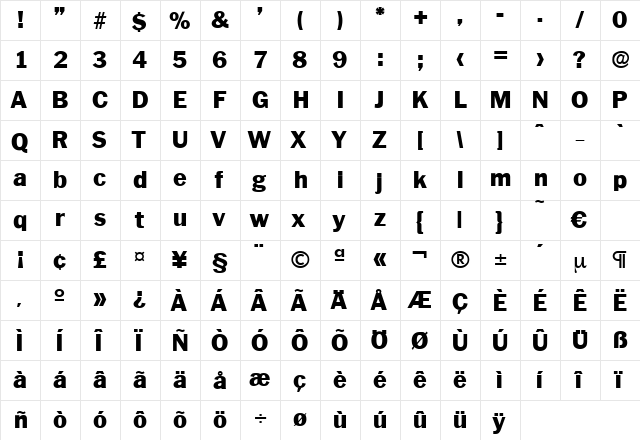
Plymouth-ExtraBold Regular
Design Context for Plymouth-ExtraBold Typeface
Plymouth-ExtraBold offers clean, dependable letterforms without strong stylistic allegiance, making it a practical choice for designers who need flexibility. The heavy weight commands attention and anchors typographic hierarchies.
Pro Tip: Pair Plymouth-ExtraBold with a font of contrasting weight or personality to build a more expressive typographic hierarchy.